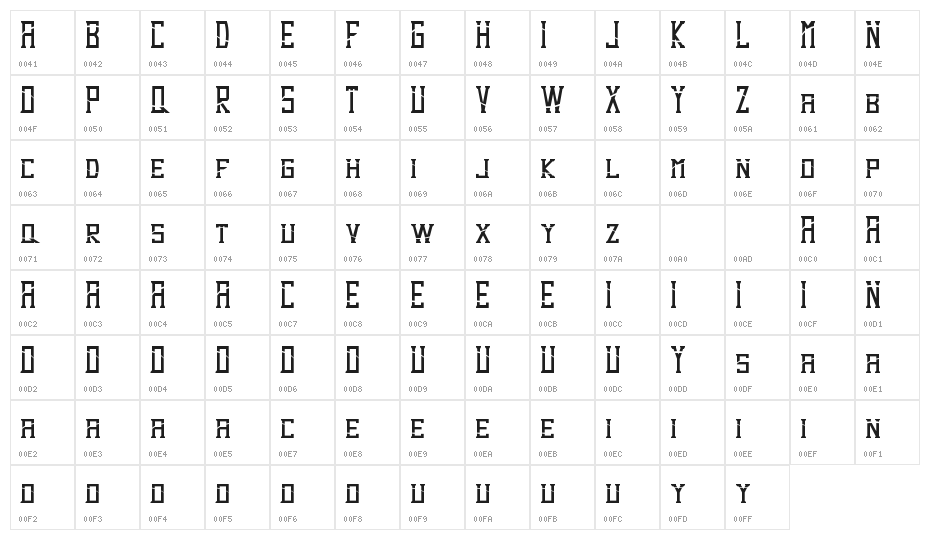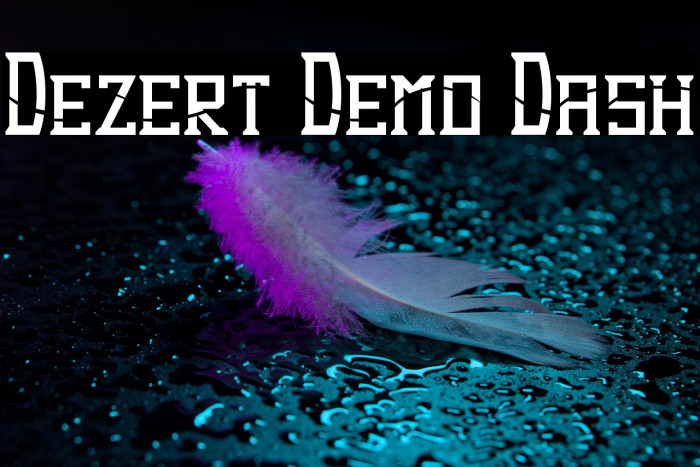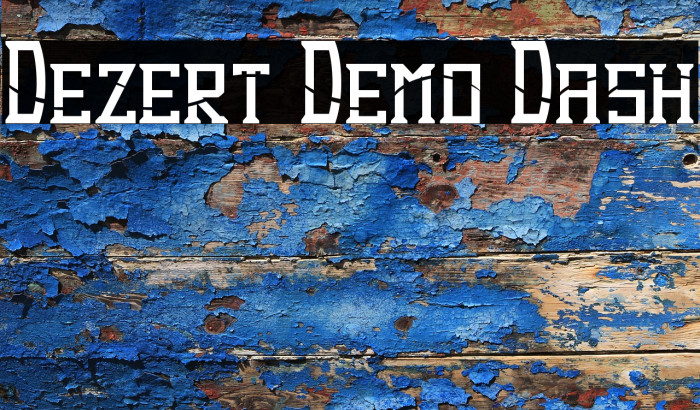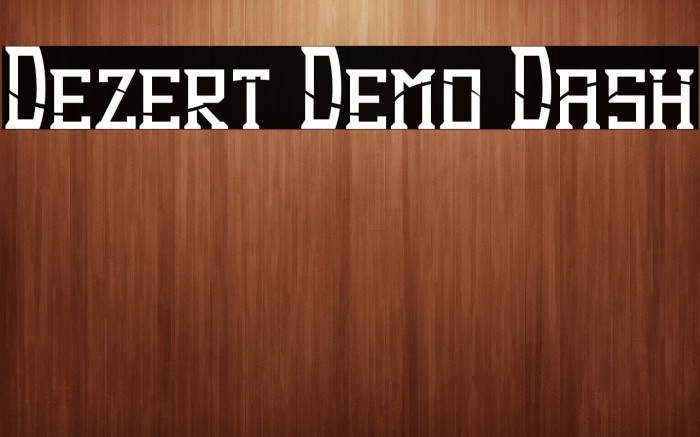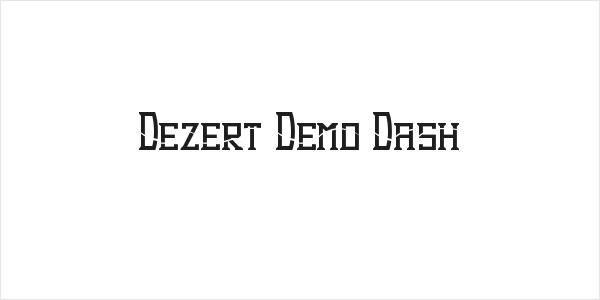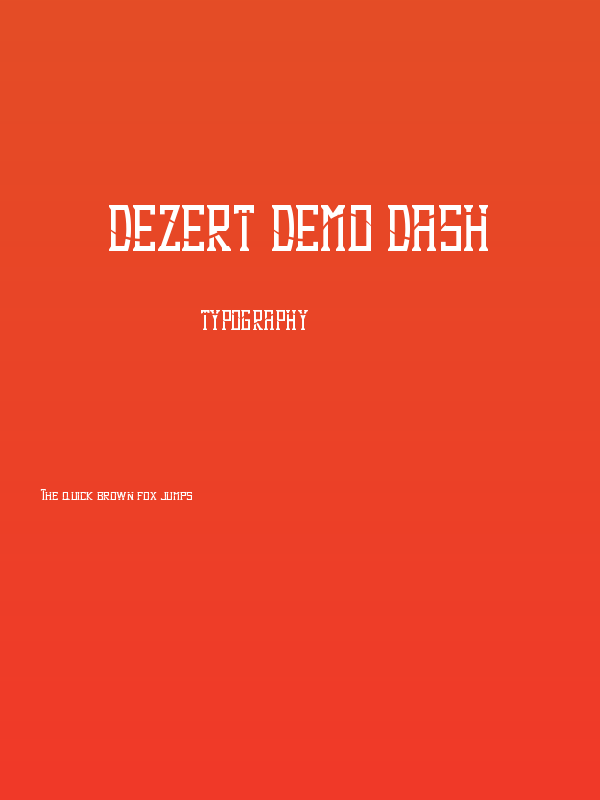
Dezert Demo Dash Font
Dezert Demo Dash Description
This font features a bold, geometric design with sharp angles and a distinct, edgy appearance. The characters are constructed with a combination of thick and thin strokes, creating a high contrast that enhances its striking visual impact. The uppercase letters are particularly prominent, with a uniform height and width that contribute to a cohesive and structured look. The font's unique style is reminiscent of industrial or futuristic themes, making it suitable for projects that require a strong, modern aesthetic. The angular cuts and precise lines give it a dynamic and energetic feel, perfect for grabbing attention.